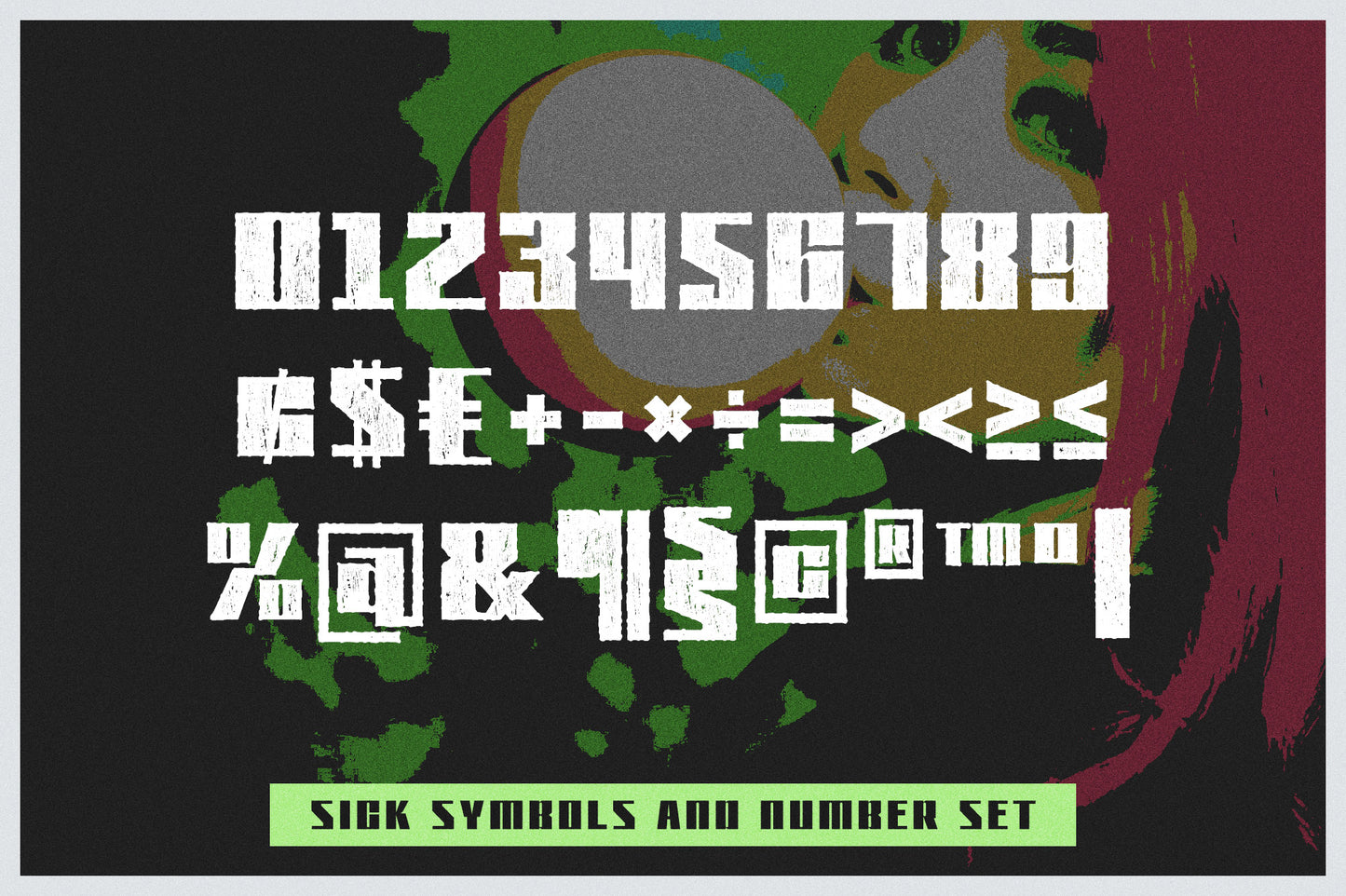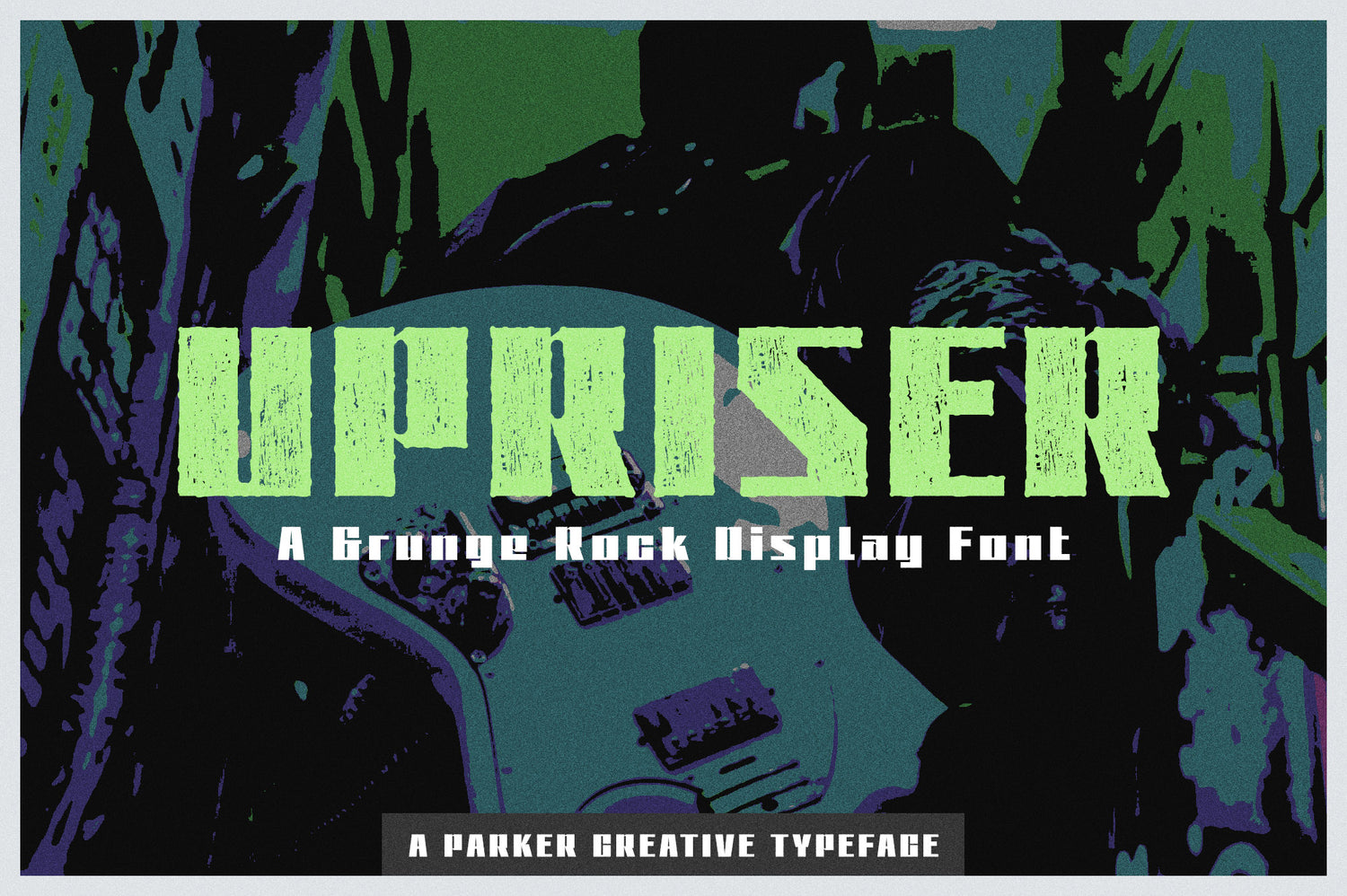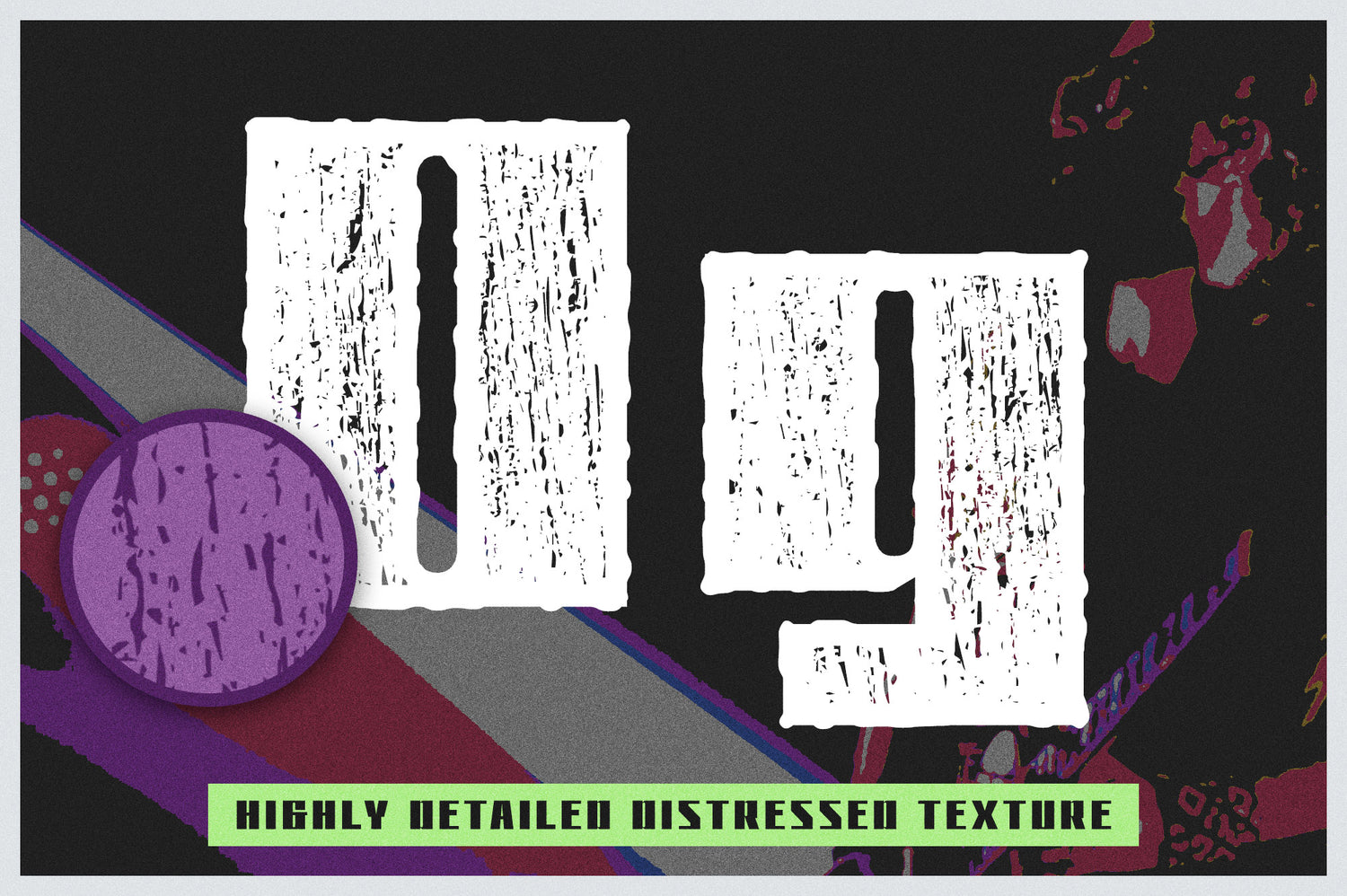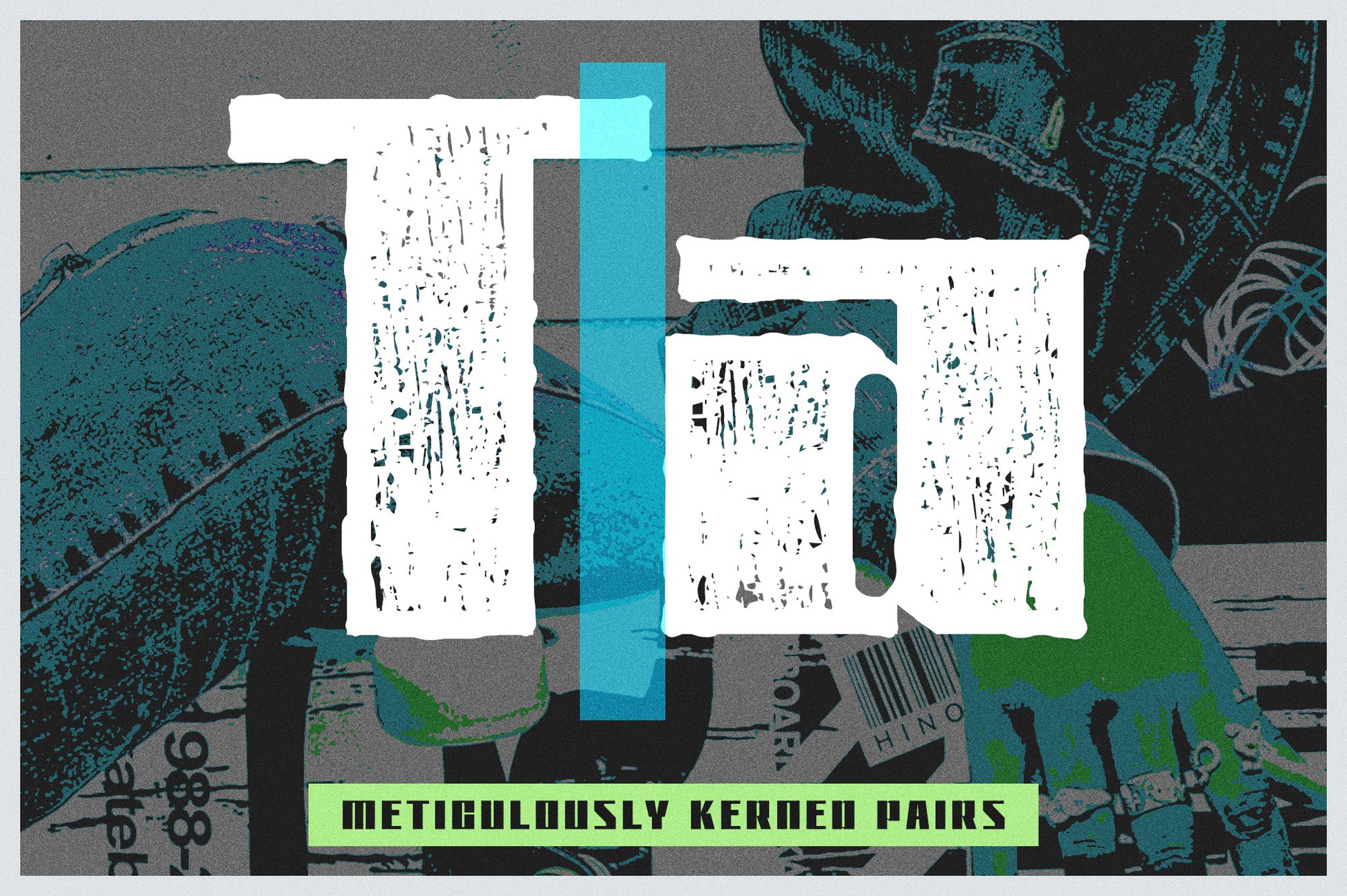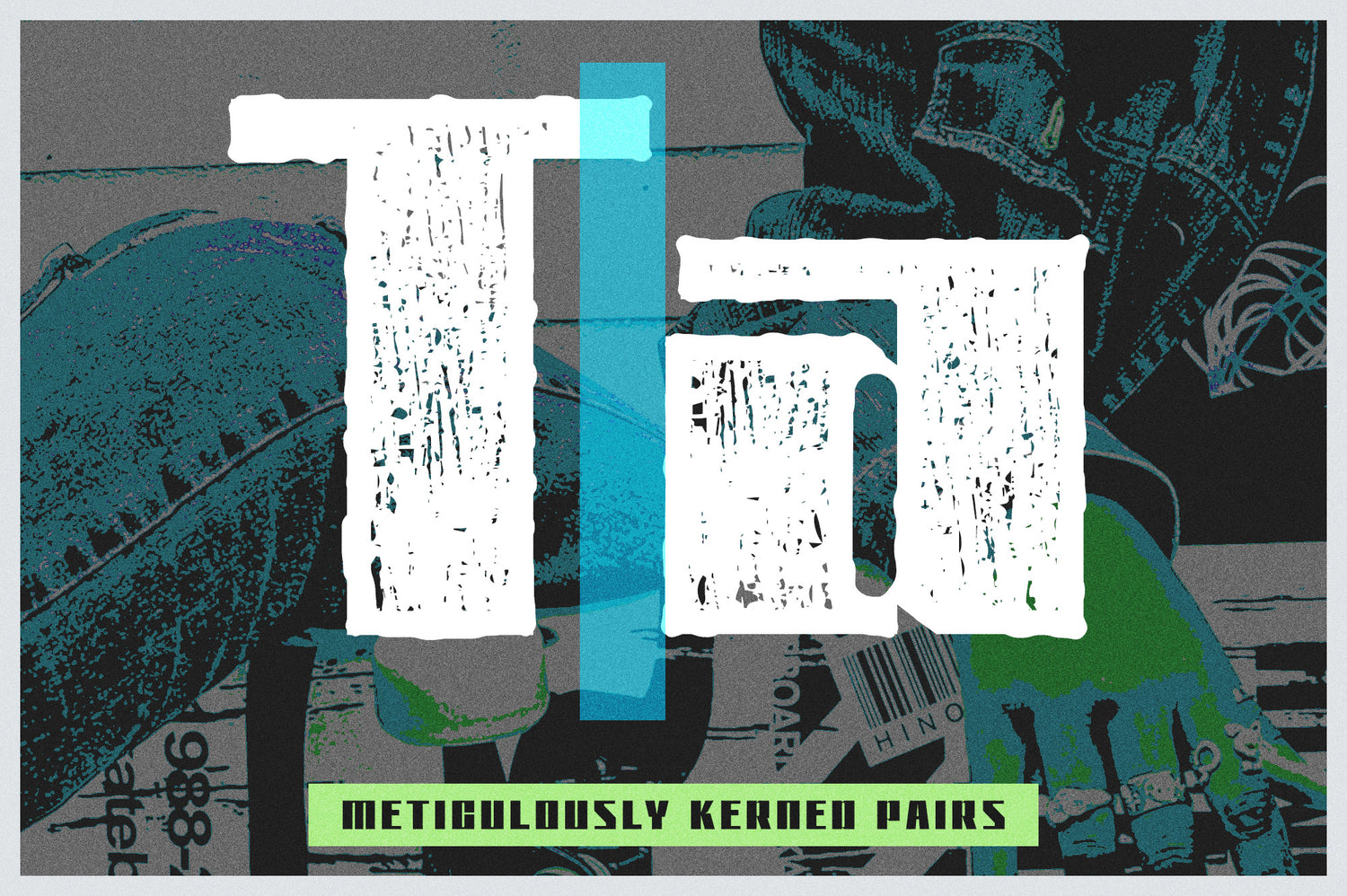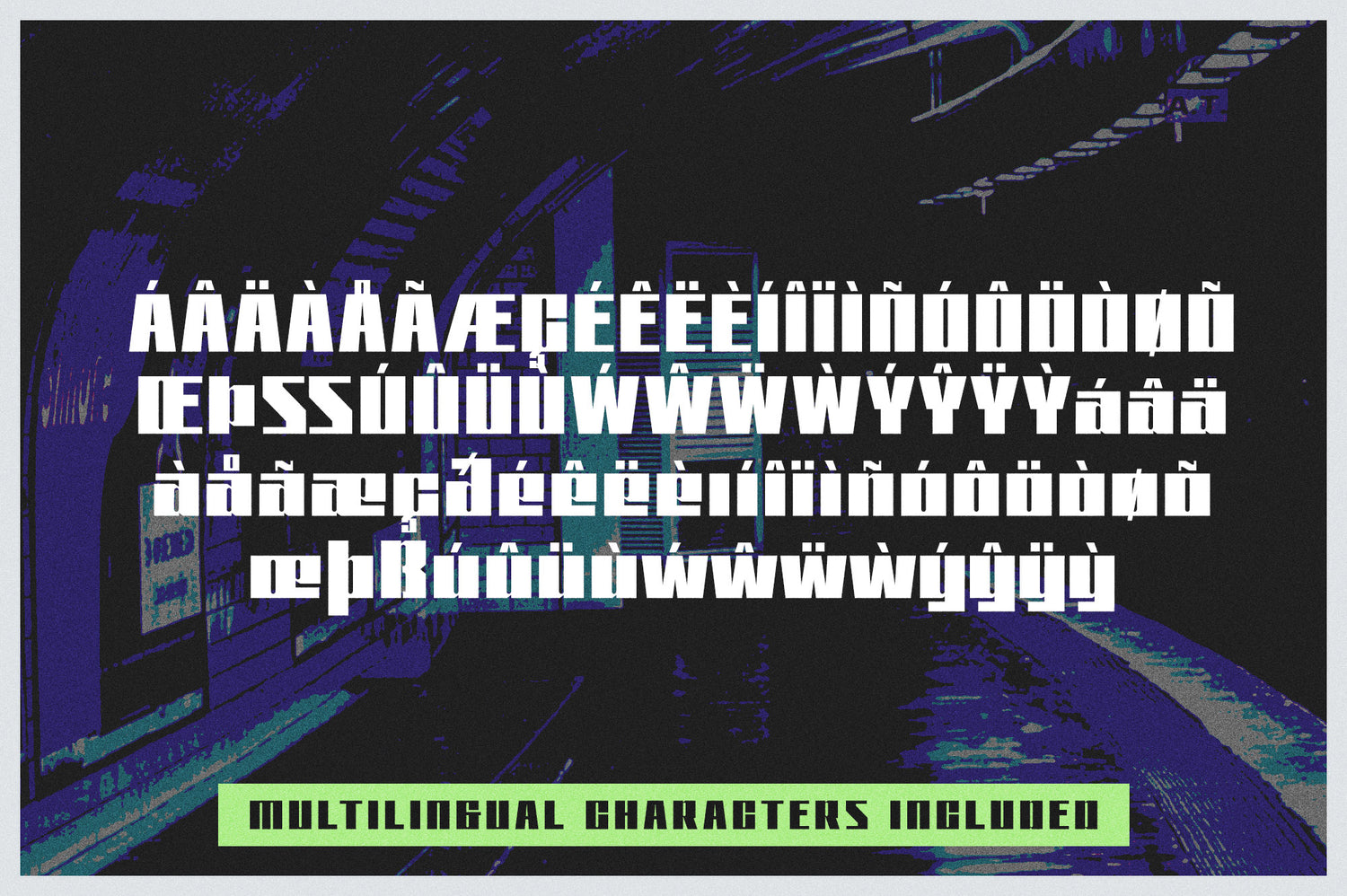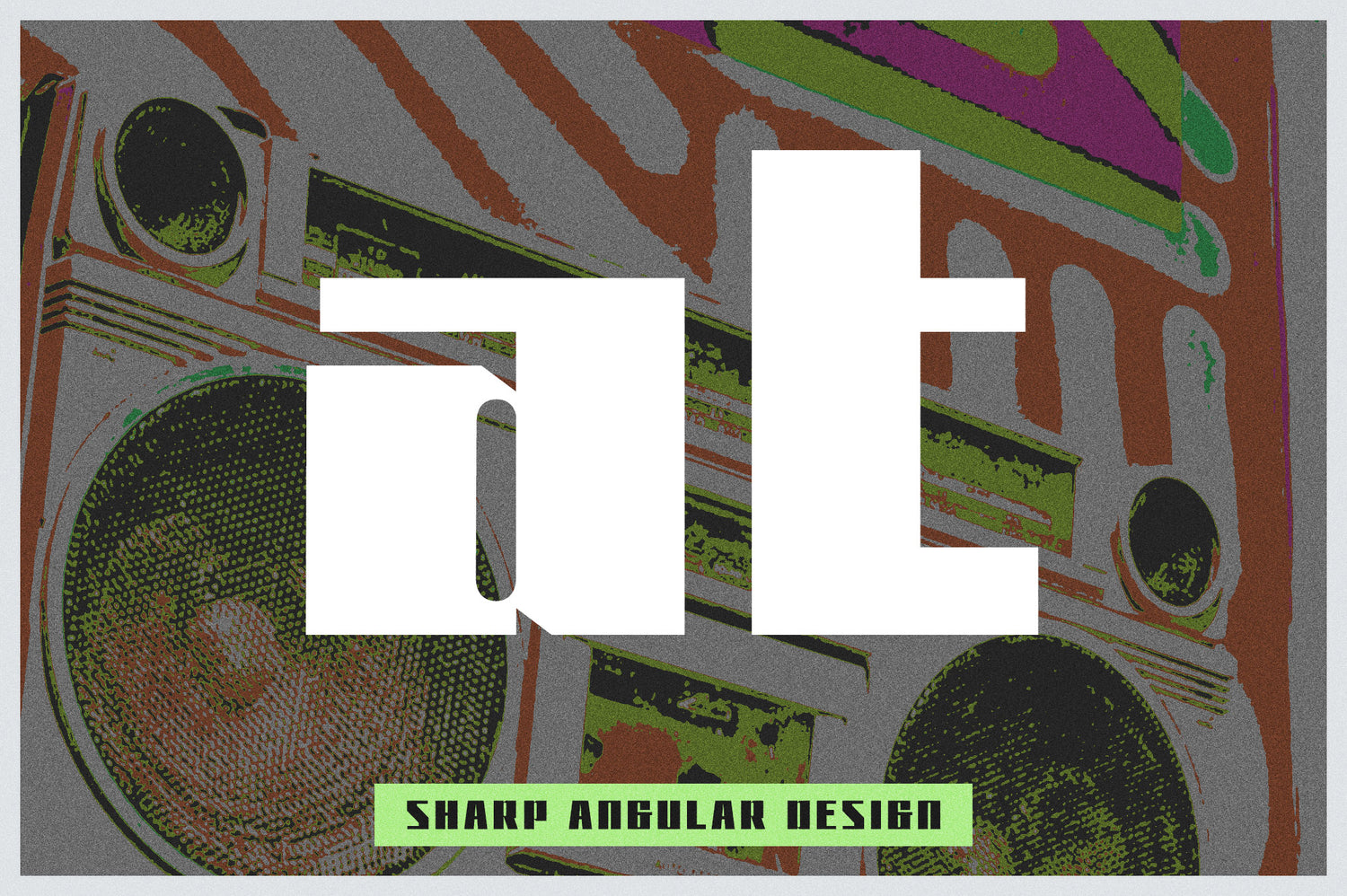
Upriser Grunge Rock Font
Introducing Upriser, an edgy typeface with rock n roll roots. Inspired by punk rock culture of the 1970s and 80s, Upriser delivers an authentically sharp and aggressive appearance that demands attention on the page. Use Upriser to convey a sense of power and raw grit in your design!
Upriser is a highly-stylized typeface that features sharp lines and angles. Both standard and distressed variations are included, and all fonts are provided in .OTF, .TTF, and .WOFF file formats for flexibility across digital, web, and print mediums.